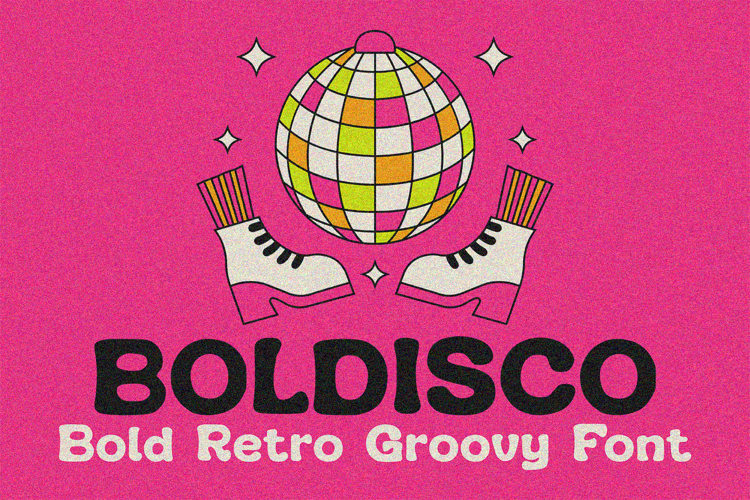
Step into the groove with Boldisco, a bold retro typeface full of funky curves and playful disco vibes. Inspired by the colorful energy of the 70s and 80s, this groovy display font is perfect for projects that need a fun, vibrant, and nostalgic touch.
With its bold letters and funky personality, Boldisco works great for:
-Retro posters & flyers
-T-shirt & merch designs
-Album covers & music festival branding
-Social media graphics & quotes
-Logo design & creative branding projects
Let your designs shine like a disco ball with Boldisco – the perfect font for bold creatives and retro lovers.